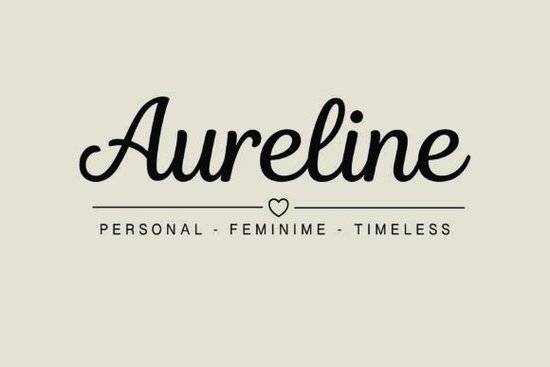
Looking for a script font that feels personal, feminine, and refined without being overdone? The Aureline Font is a sophisticated typeface built for designers, crafters, and small business owners who want their text to carry an air of polished elegance. With its smooth monolinear weight and flowing rhythm, Aureline reads like professional calligraphy but with a modern, clean edge that works across digital and print projects.
What Makes Aureline Different from Other Script Fonts?
A lot of script fonts either lean too casual or too ornate. Aureline sits in a sweet spot. Its delicate loops and balanced posture give it a timeless quality that doesn't feel dated or trendy. The letterforms connect naturally, creating a smooth reading experience even at smaller sizes.
Unlike heavy cursive fonts that sacrifice legibility for flair, Aureline keeps things clean. Each character maintains consistent spacing and weight, which means your text stays readable whether it's on a wedding invitation or a product tag.
Here's what stands out about this typeface:
- Monolinear weight no thick-thin contrast, giving it a modern hand-lettered feel
- Flowing connections letters link smoothly without awkward breaks
- Feminine but not fragile graceful without feeling overly decorative
- Versatile sizing works well from headers down to smaller text blocks
Who Is This Font Best Suited For?
Aureline is designed with specific creative professionals in mind. If your work involves any of the following, this font is worth a close look:
- Wedding stationery designers invitations, save-the-dates, menu cards, and signage
- Luxury branding projects boutique logos, packaging, and label design
- Print-on-demand sellers mugs, tote bags, wall art, and apparel designs
- Lifestyle bloggers and editorial designers headers, pull quotes, and social graphics
- Small business owners especially in beauty, fashion, and handmade goods
For crafters who sell on Etsy or run a small design shop, Aureline gives your products a high-end look without requiring custom hand-lettering. It's the kind of font that makes a simple quote print or greeting card feel intentional and curated.
What Projects Can You Use Aureline For?
This font adapts well to a wide range of creative applications. Some of the most popular uses include:
- Signature-style logos for personal brands
- Wedding and event stationery suites
- Social media templates and Instagram stories
- Product packaging and thank-you cards
- Blog headers and editorial layouts
- DIY craft projects like scrapbooking and journaling
Aureline pairs especially well with clean sans-serif fonts for body text. Try combining it with a simple geometric typeface for headings to create a balanced, professional hierarchy.
How Does Aureline Compare to Other Script Fonts on Creative Fabrica?
Creative Fabrica offers a solid library of script fonts, and each one serves a slightly different purpose. Here's how Aureline fits alongside some popular alternatives:
Flower Honey leans into a more playful, bouncy style with thicker strokes. It's great for fun, casual projects but doesn't carry the same refined tone as Aureline.
The Better Together font has a warm, handwritten quality that suits rustic and cozy designs. If your brand is more farmhouse or boho, that one might be a better fit.
Honeymoon is romantic and expressive, with more variation in its stroke width. It works beautifully for wedding projects but can feel a bit more dramatic than Aureline's understated elegance.
For designers who want something sweet and simple, the I Heart You font offers a light, affectionate style that pairs well with Valentine's Day or love-themed designs.
Aureline distinguishes itself by being versatile enough for luxury branding while still feeling warm and approachable. It doesn't scream for attention it earns it through refined consistency.
How Do You Pair Aureline with Other Fonts?
Good font pairing makes or breaks a design. Here are a few practical combinations that work well with Aureline:
- Aureline + a clean sans-serif (like Montserrat or Poppins) ideal for modern branding and web headers
- Aureline + a light serif (like Playfair Display) perfect for editorial and wedding stationery
- Aureline + a simple slab serif works for product labels and packaging with a vintage touch
Use Aureline for your headline or logo element, and let the secondary font handle body copy. This keeps your layout readable while maintaining visual interest.